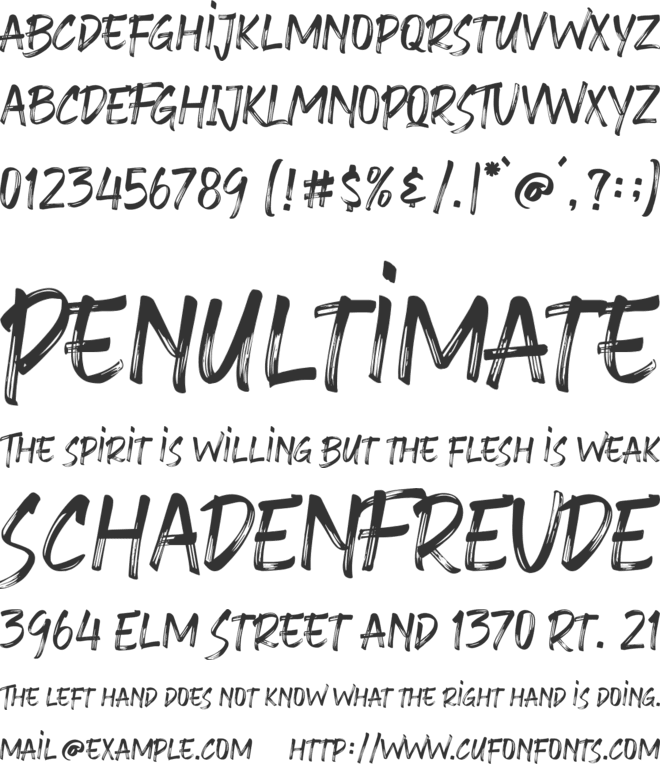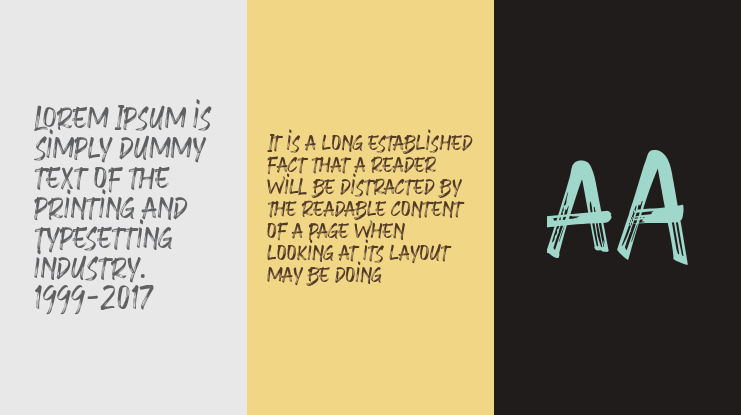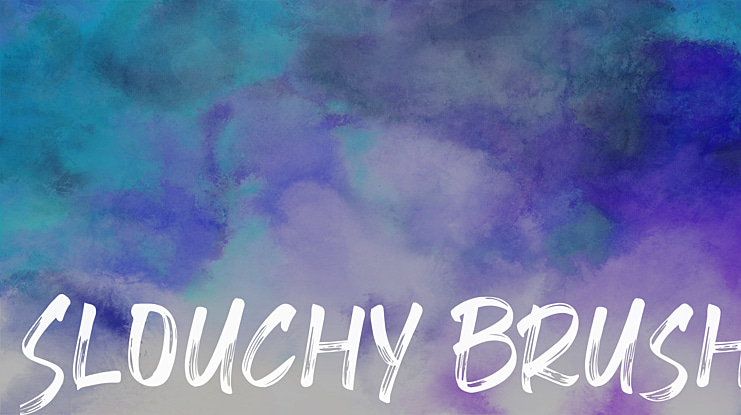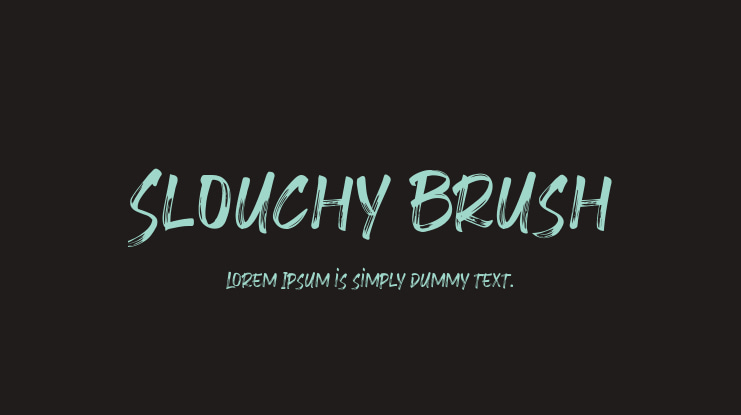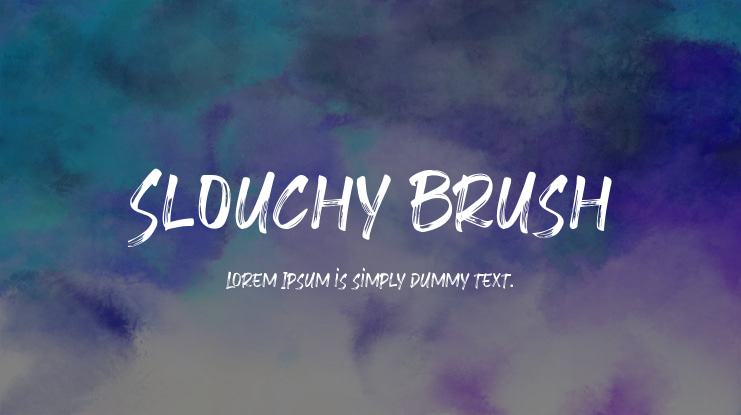
Slouchy Brush Font
Bold for the win!
Introducing Slouchy Brush - A new rough typfaces! Natural, casual and strong fonts with a gorgeous handwritten looks. Consisting of textured All-caps handwritten strokes.
Slouchy Brush is perfect for all advertisement, branding, Logo design, Quotesproduct packaging or stylish text overlay to any background or purpose.